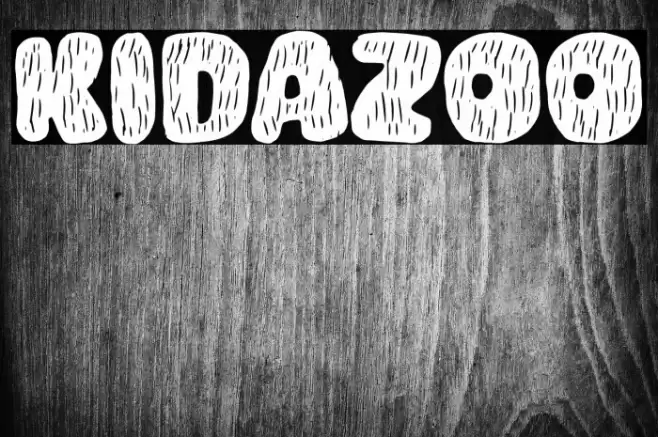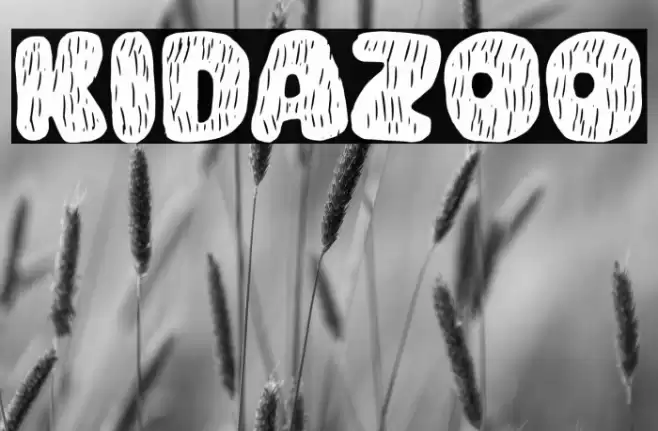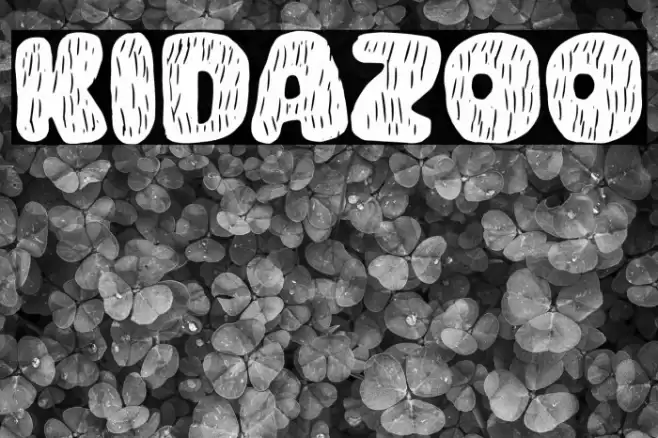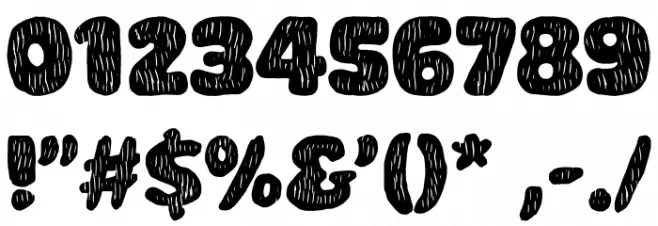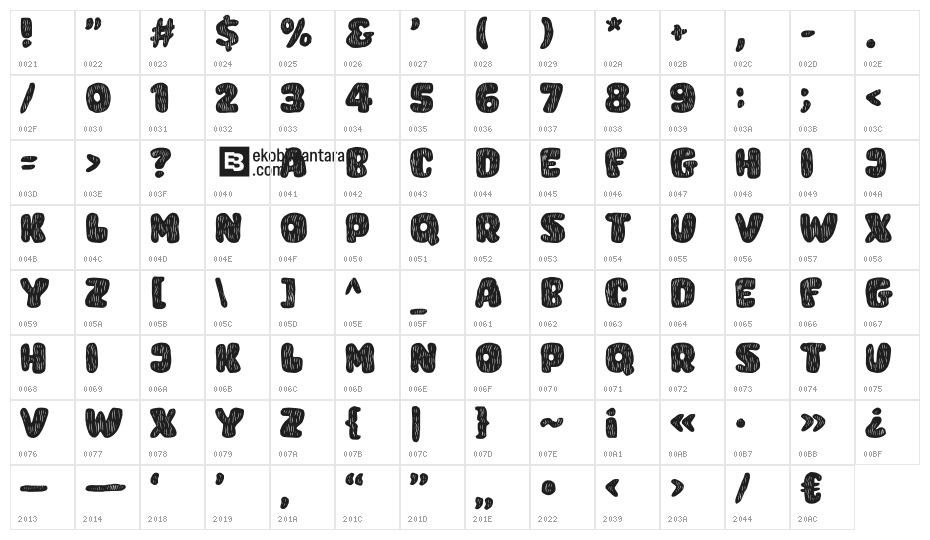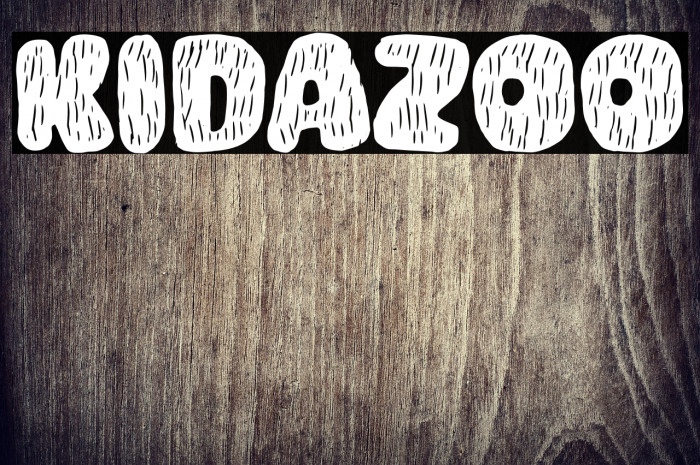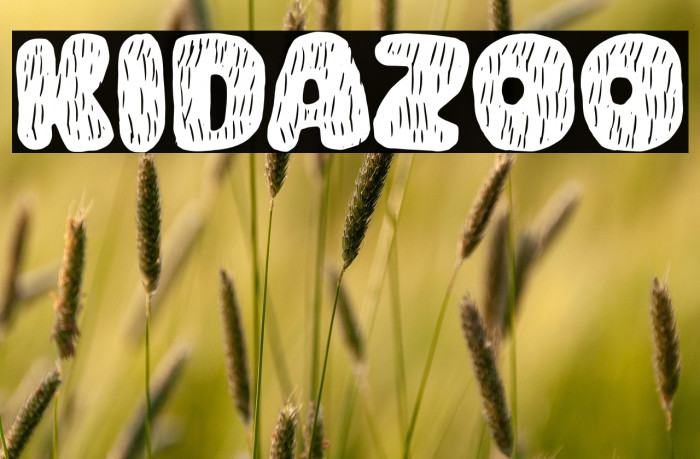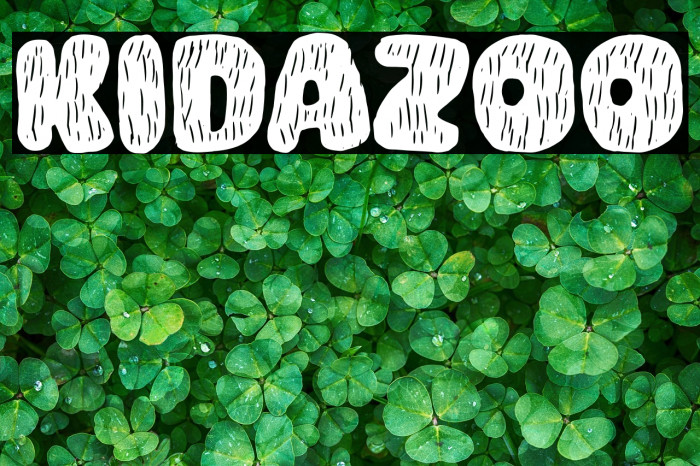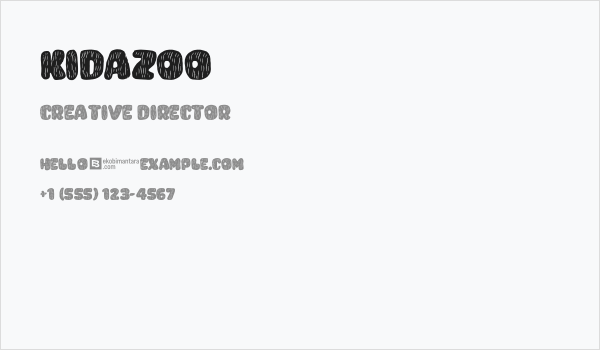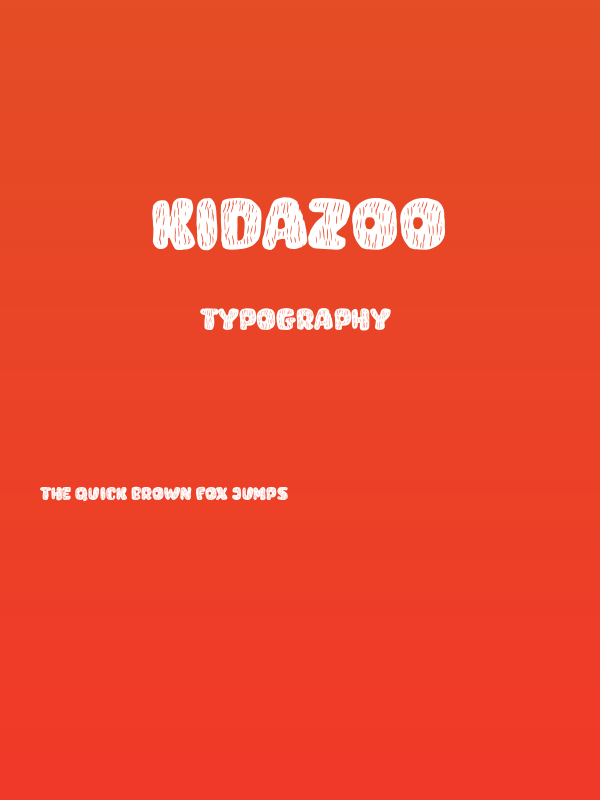
KIDAZOO Font
KIDAZOO Description
This playful and whimsical font features bold, rounded characters with a hand-drawn, textured appearance. Each letter and number is filled with irregular, sketch-like lines that give it a lively and dynamic feel. The font's design is reminiscent of children's drawings, making it perfect for projects that require a fun and informal touch. Its boldness ensures readability while the unique texture adds a layer of visual interest. The characters are evenly spaced, maintaining a consistent look across all text.
A playful, hand-drawn font with bold, textured characters from Uncategorized fonts.
- Proposed Projects: Ideal for children's books, playful branding, party invitations, and educational materials.
- Overall Style: Playful, Whimsical